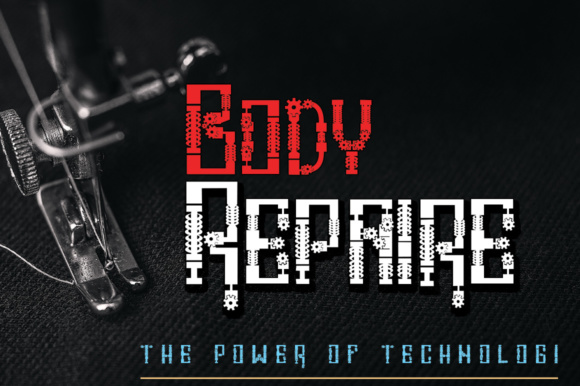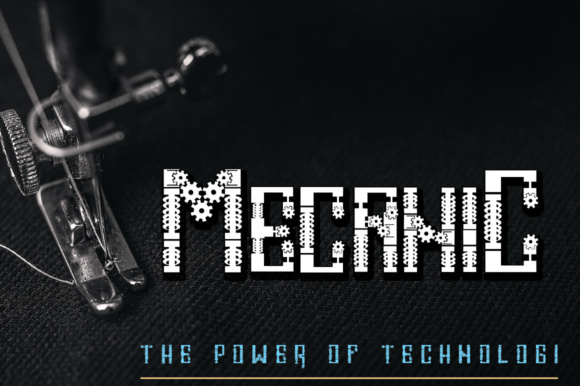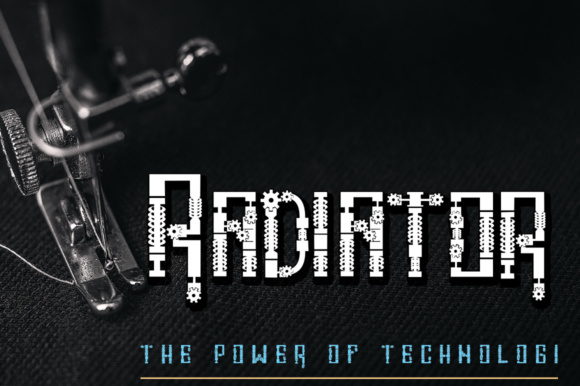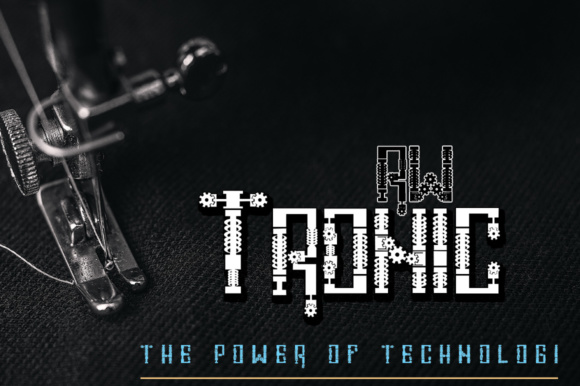
The Gear Font: A Unique Display Typeface for Designers and Crafters
The Gear Font is a one-of-a-kind display typeface that is sure to grab attention with its innovative design. As the name suggests, the characters in this font are shaped like gears, giving it a mechanical and industrial feel. In this article, we’ll take a closer look at the Gear Font, its features, and how it can be used in various design projects.
The Inspiration Behind the Gear Font
The Gear Font is perfect for designers and crafters who are looking for a unique and creative way to express themselves. The font’s design is inspired by the intricate mechanisms of machines and the way gears work together to create something functional and beautiful. The font’s creator aimed to capture the essence of this mechanical beauty and translate it into a typographic form.
Key Features of the Gear Font
- Unique Character Design: Each character in the Gear Font is designed to resemble a gear, complete with intricate details and a mechanical feel.
- Display Typeface: The Gear Font is specifically designed as a display typeface, making it perfect for headlines, titles, and other large-format text.
- Industrial Feel: The font’s mechanical design gives it an industrial feel that’s perfect for projects that require a strong, edgy look.
- Highly Versatile: Despite its unique design, the Gear Font is highly versatile and can be used in a wide range of projects, from logos and branding to posters and packaging.
Using the Gear Font in Design Projects
The Gear Font is perfect for designers and crafters who want to add a touch of industrial chic to their projects. Here are some ideas on how to use the font:
- Logos and Branding: The Gear Font is perfect for creating logos and branding materials for companies that want to convey a sense of strength, reliability, and innovation.
- Posters and Flyers: The font’s bold, eye-catching design makes it perfect for creating posters and flyers that need to grab attention.
- Packaging Design: The Gear Font can add a touch of industrial chic to packaging design, making it perfect for products that want to stand out on store shelves.
- Web Design: The font can be used in web design to create bold, eye-catching headlines and titles that draw visitors in.
Tips for Working with the Gear Font
Here are some tips for working with the Gear Font:
- Use it Sparingly: Due to its bold, eye-catching design, it’s best to use the Gear Font sparingly to avoid overwhelming the viewer.
- Pair it with a Simple Font: Pair the Gear Font with a simple, sans-serif font to create a striking contrast.
- Experiment with Colors: The Gear Font looks great in bold, bright colors, so don’t be afraid to experiment and find the perfect hue for your project.
The Gear Font is a unique and versatile display typeface that’s perfect for designers and crafters who want to add a touch of industrial chic to their projects. With its bold, eye-catching design and highly versatile nature, the Gear Font is sure to become a go-to font for anyone looking to create striking, memorable designs.
Get Creative with the Gear Font
So why not get creative with the Gear Font and see what amazing designs you can come up with? Whether you’re a seasoned designer or a crafty DIY enthusiast, the Gear Font is sure to inspire you to create something truly unique and memorable.